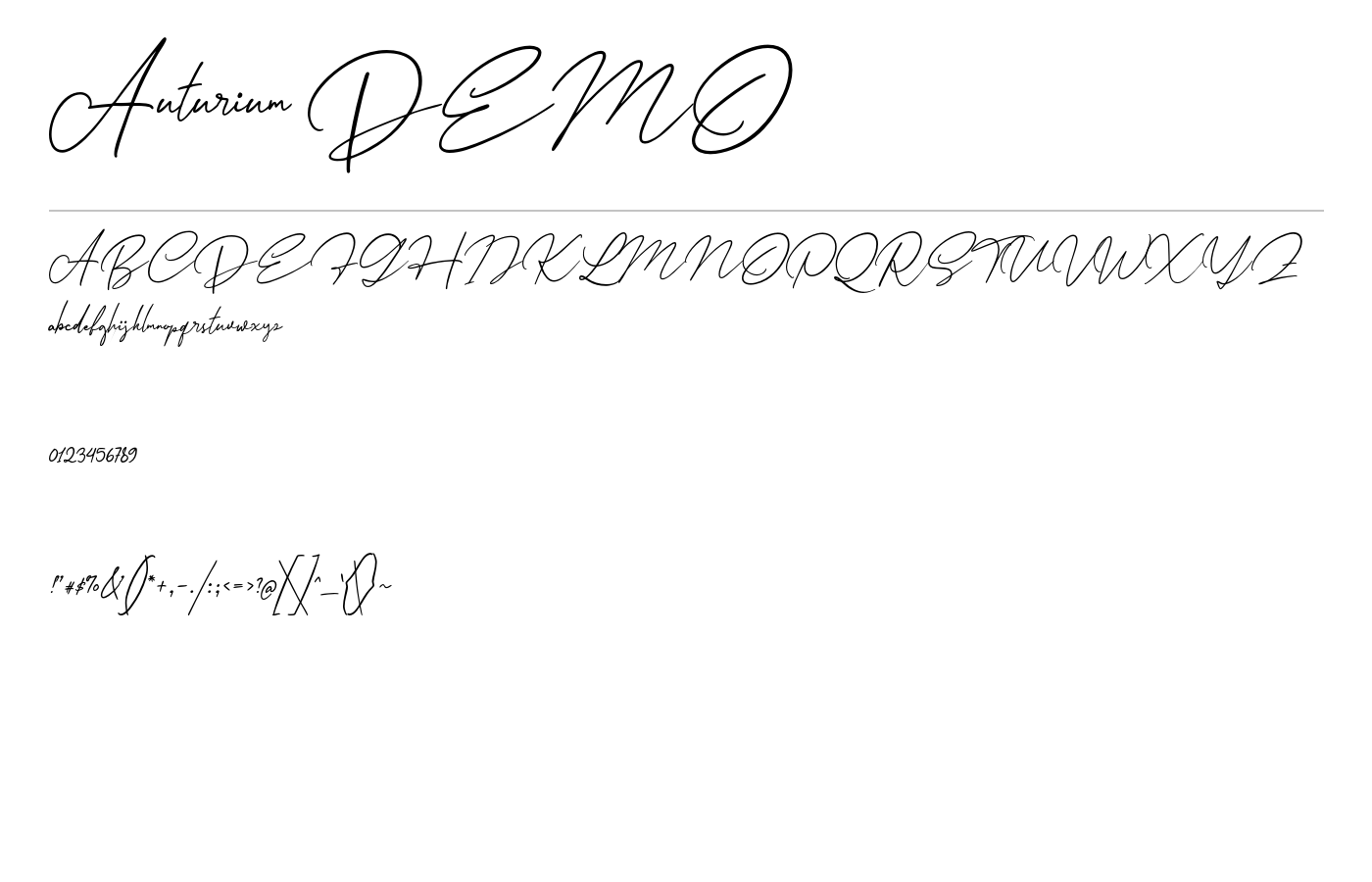
Auturium DEMO is an elegant handwritten script font characterized by its delicate, flowing strokes and airy, natural feel. It features a refined contrast in line thickness and smooth, graceful curves, giving it a sophisticated yet approachable personality perfect for invitations, branding, and creative projects that seek a personal, stylish touch. This font shines in decorative uses where a sense of elegance and fluidity is desired.
Auturium DEMO Font
About Auturium DEMO Font